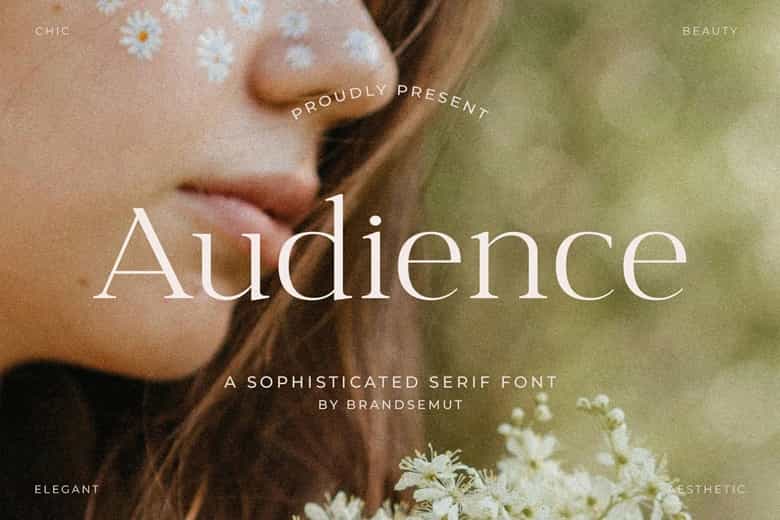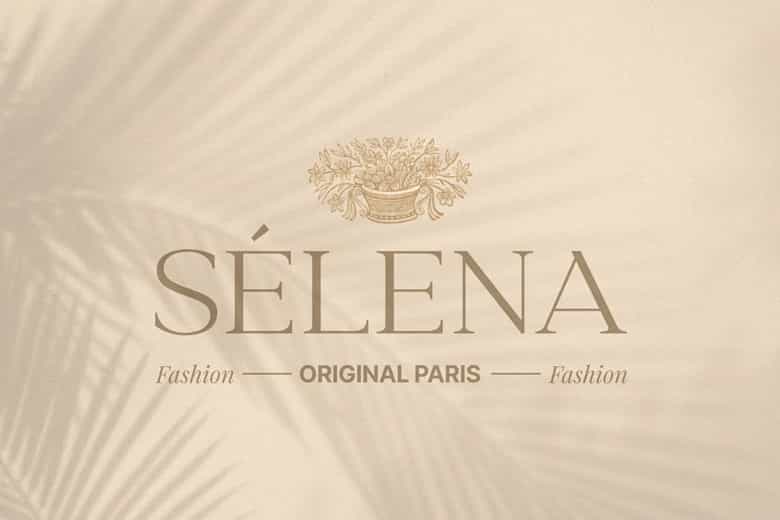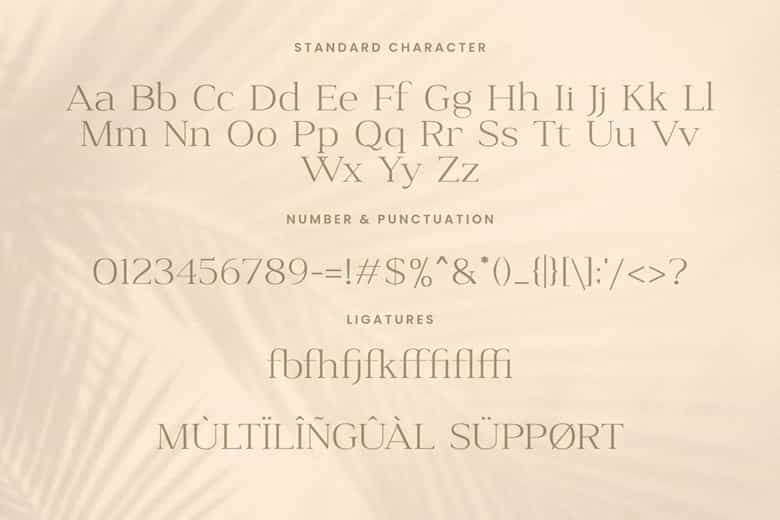
Audience is a sophisticated serif font, best used as a display for headings, logos, branding, magazines, product packaging and invitations. Audience come with clean lines and smooth curves give any project an extra touch of class.